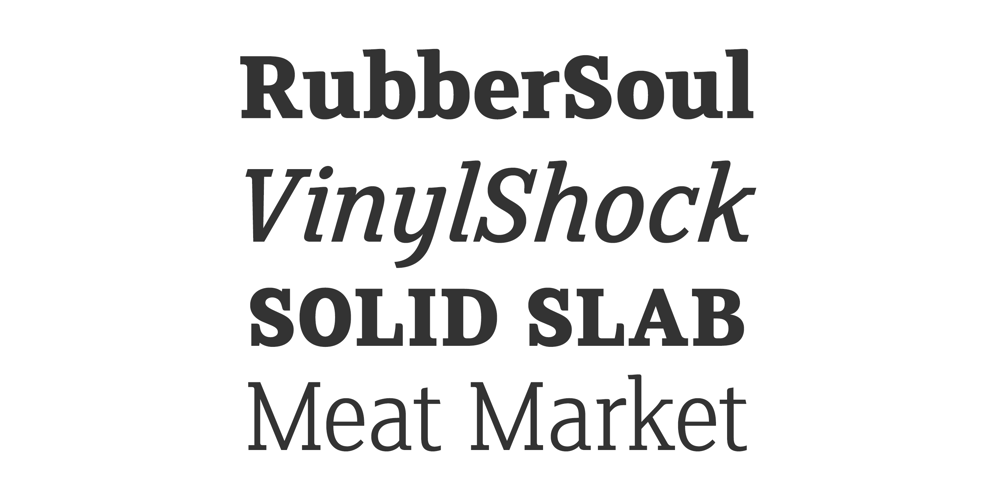
FS Clerkenwell
FS Clerkenwell Font Family was designed by Jason Smith, Phil Garnham and published by Fontsmith. FS Clerkenwell contains 4 styles and family package options. A creative context2003. Fontsmith was sharing a small, cold, whitewashed studio space in Northburgh Street, Clerkenwell. But things were on the up following prestigious custom type commissions for The Post Office and E4. “Slab serifs were on the brink of another revival, we could feel it,” says Jason Smith. “All we wanted to do was have a play with these slabs, go as far as we could within what was acceptable and readable.” “It wasn’t initially clear what was happening,” recalls Phil Garnham. “We were becoming very influenced by our surroundings, outside the studio space. We absorbed the essence and the designer grime of where we were.”ProcessJason began by drawing stems on-screen. “The key aspect of the font is the upward bend of the leading shoulder serif, the way it kind of ramps up and then plummets back down the stem. “The regular and light characters are quite narrow – great for text but the bold is quite wide and chunky – better for headlines. I think ‘y’ is quite different for a slab design. We call it the Fontsmith ‘y’.”PromotionFontsmith were determined to get FS Clerkenwell noticed. To launch the font, Ian Whalley, a designer friend of Fontsmith, captured words heard on the streets of Clerkenwell, set them in the new font and crafted a small book of typographic conversations. It was a first for Fontsmith. “I think that’s part of why this font has been so successful,” says Phil. “It really does embody the spirit of the area, as a special place for design, arts and crafts. And designers love that.” Contemporary twistFS Clerkenwell, based on influences in and around this part of London with a rich tradition of printing and design, mixes tradition with creation. Old-fashioned values meet new-school trends. Its quirky, contemporary character lends an edge to headlines, logotypes and any large-size text.